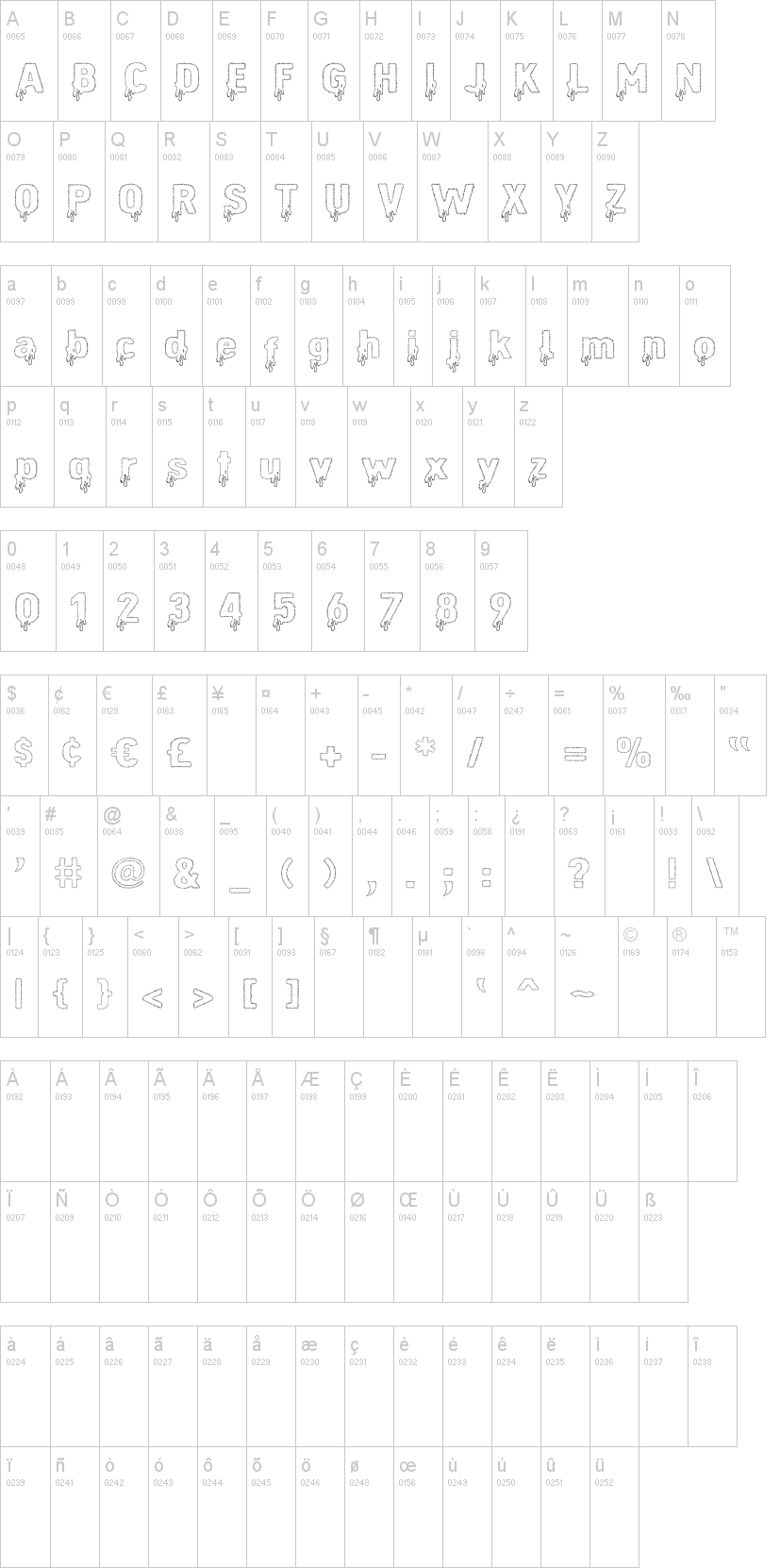
Note of the authorCreated by Stacey Thatcher and Cameron Climpson
For Nepean Arts and Design Centre NADC Graphic Design Assignment
This is a font that represents both fur and guts.